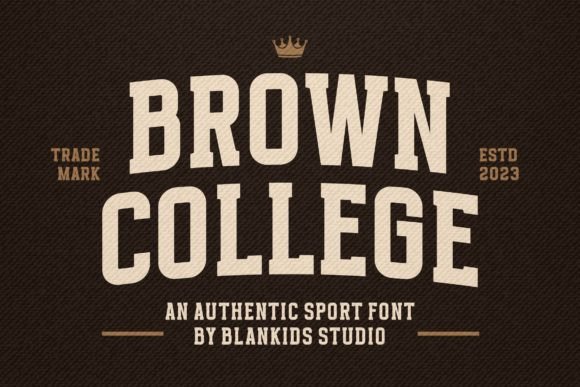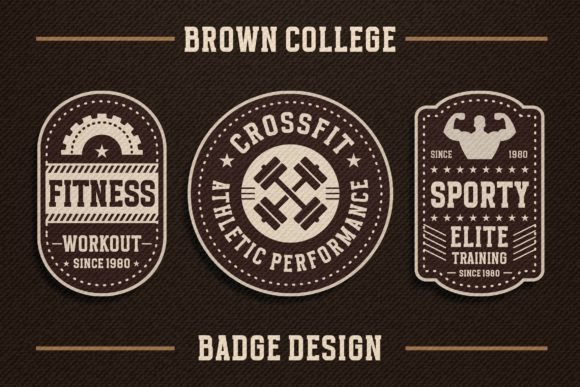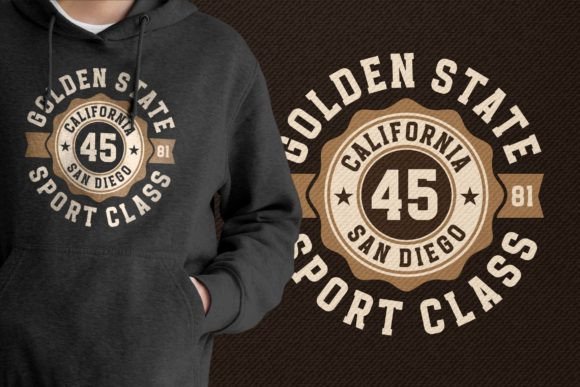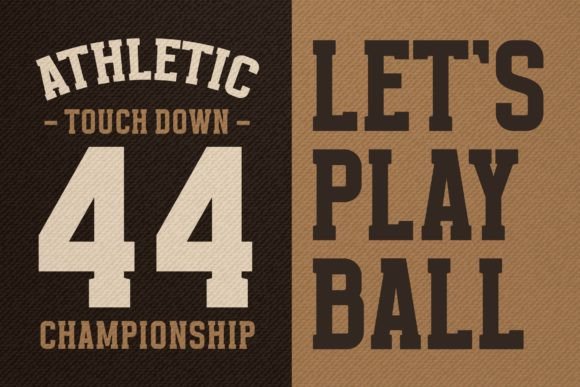
Brown College Font: A Bold Display Font for Sporty Logo Design
About the Brown College Font
Introducing the Brown College Font, a beautifully crafted typeface designed to elevate your creative projects. Brown College is an authentic sports display font inspired by college typography. It is perfect for attractive and playful designs such as book covers, posters, packaging, merchandise, logotypes, and much more. Are you looking for a font that will help you inspire creativity, imagination, and endless fun? Look no further, this is your best choice!
Brown College’s bold, playful energy makes it ideal for headlines, posters, and branding projects needing a strong visual impact. It works exceptionally well for sportswear apparel, youthful brands, and projects aiming for a retro-collegiate aesthetic. However, its condensed letterforms and strong contrast make it less suitable for body text or UI elements requiring high readability.
Pairing Brown College effectively depends on the desired emphasis. For a balanced approach, consider pairing it with a clean sans-serif like Open Sans or a neutral serif like Lora for body text. To amplify its playful nature, a rounded sans-serif such as Montserrat or a playful script font could be used for secondary elements. Avoid pairing it with overly decorative or highly contrasting fonts that might visually clash.
The font’s overall personality is energetic and friendly, conveying a sense of spirited competition and youthful enthusiasm. This makes it particularly well-suited for projects needing a vintage-inspired yet contemporary feel.